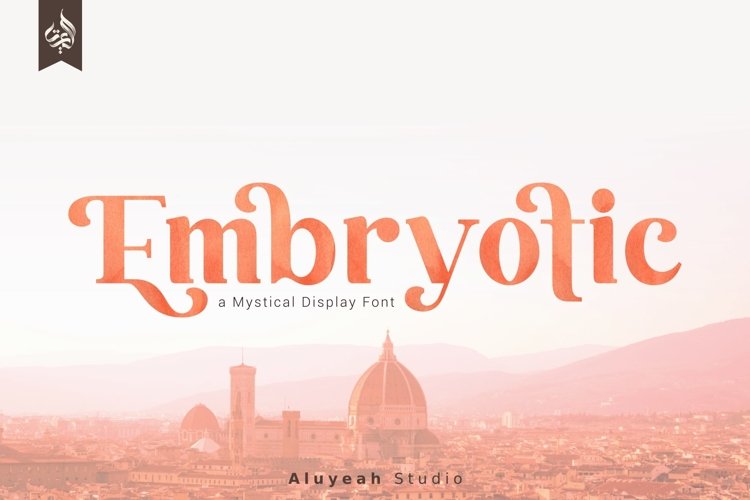
AL Embryotic
Bonjour! Embryotic is a mystical display font. This font was carefully crafted and inspired by world top fashion brand. In general, it creates a luxurious and elegant look in design.
Coming to you with 90+ luxury alternate to create a perfectly mystical, beautiful, classy, elegant design.
Use this font for your fashion brand, resort, cosmetics, invitations, wedding, branding, packaging, magazines, boutique, social media, restaurant, spa, greeting cards, headers, headline and many more.
Super Easy to Use alternates - It's OpenType support but you can easily call alternates character using special combination like A.2 B.4 h.3 etc. so you don't need special software. To get results like the preview just type E.4mb.2ryot.3ic